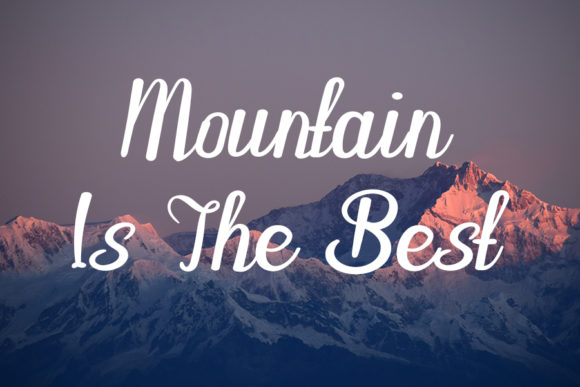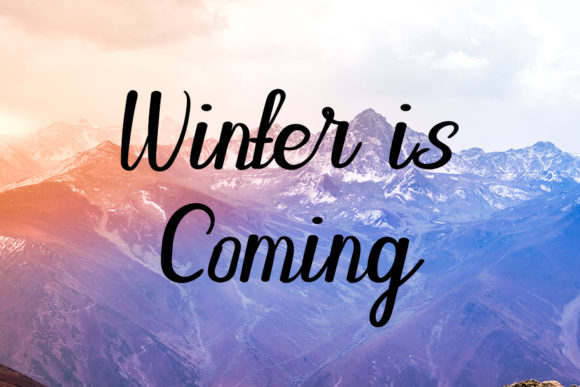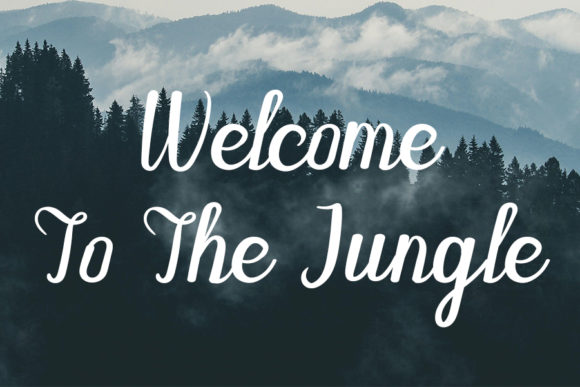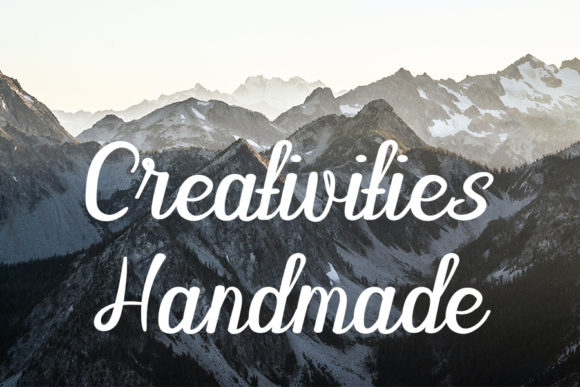
Beautiful Nature Font
About Beautiful Nature Font
Beautiful Nature is a dainty and cursive handwritten font with a unique feel and a ravishing impact. It will add a luxury touch to any design project that you wish to develop!